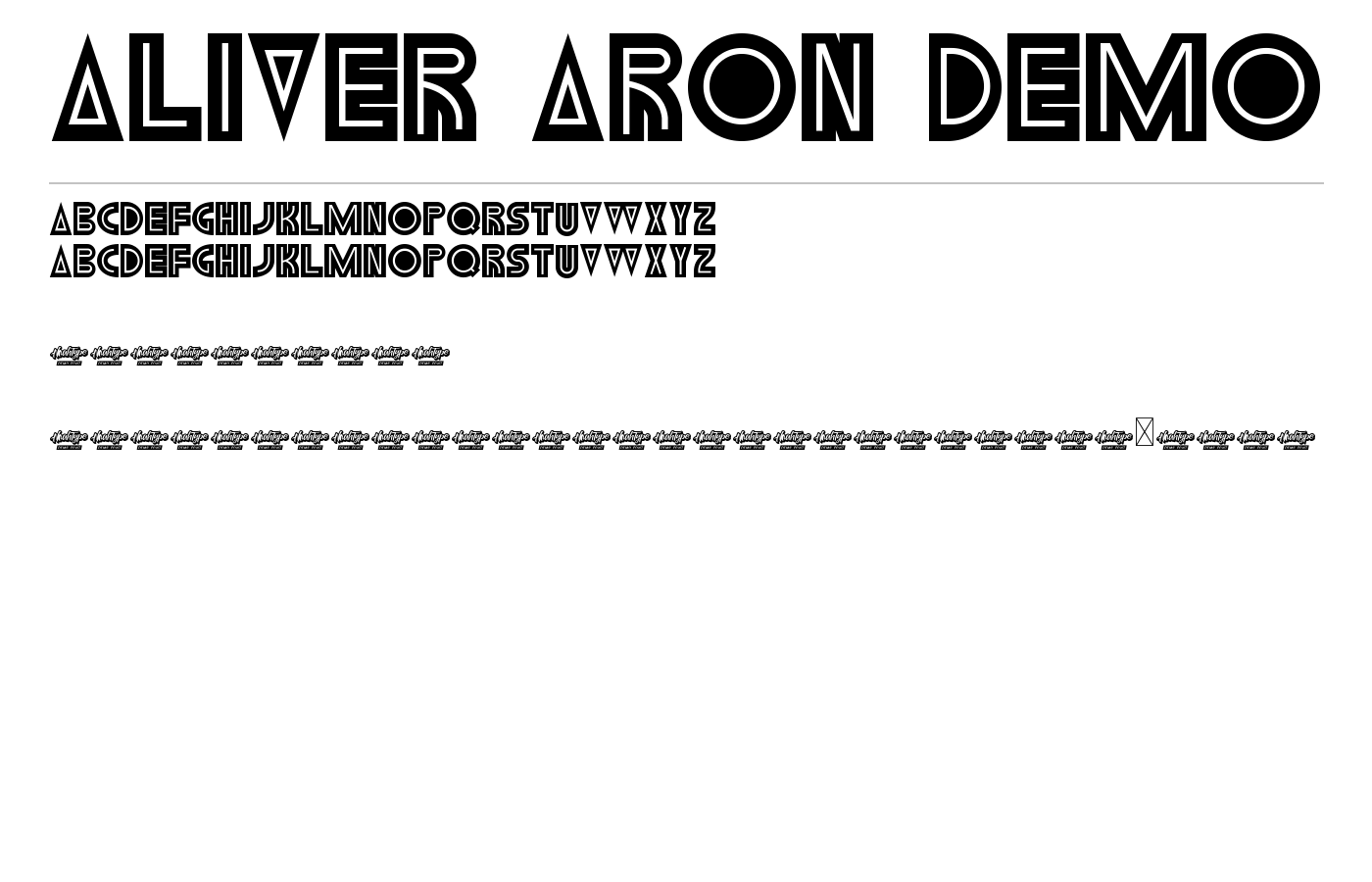
Aliver Aron Demo Font is a bold, decorative sans serif typeface with a strong geometric and Art Deco influence. Its unique, double-line letterforms and stylized shapes create a striking, vintage-modern look that works well for eye-catching headlines, logos, and branding projects seeking a playful yet sophisticated vibe. This font is perfect for adding personality and flair to posters, packaging, and creative design where standout impact is key.
Aliver Aron Demo Font
About Aliver Aron Demo Font
| Font family | Aliver Aron Demo Font |
| Designer | Shalsha & Sarah SP |